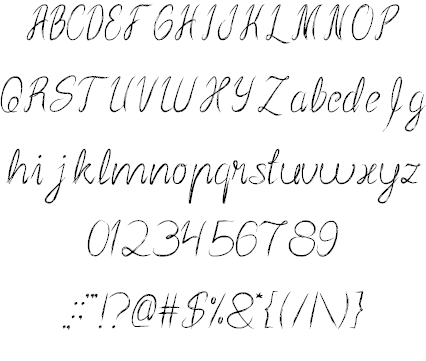
Take a look at this eye-watering free smile at face font. This free font file was found from the amazing source called Font Space. This is absolutely fancy font so you can easily make world-class designs.